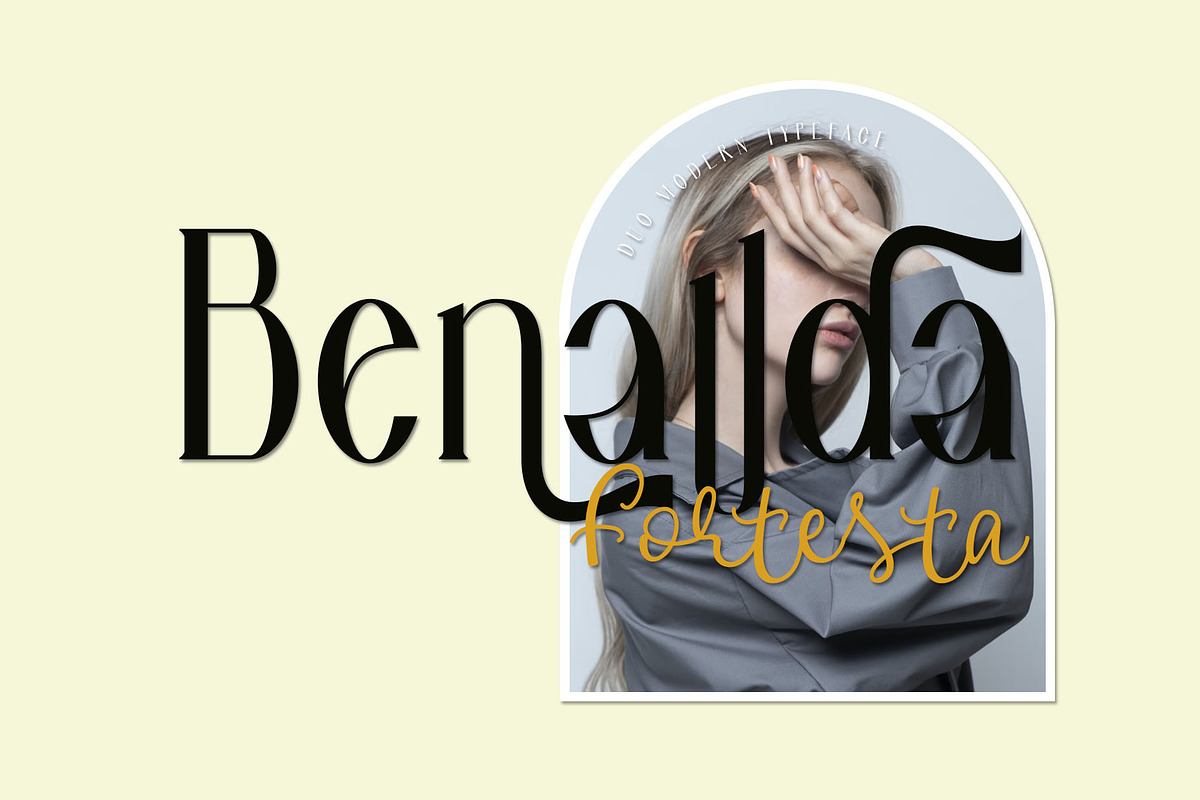
Benallda Fortesta Duo Font Free Download is a beautifully paired typeface set that combines an elegant script with a modern serif for ultimate versatility and style. Ideal for branding, wedding invitations, product packaging, and editorial layouts, this font duo adds both personality and professionalism to any design.
The script font brings a touch of handwritten charm, while the serif adds structure and sophistication—perfect for combining headlines and supporting text with balance and flair. Whether you're designing logos, fashion lookbooks, or lifestyle content, Benallda Fortesta offers a cohesive and elevated typographic solution.
Designers love Benallda Fortesta for its harmony, elegance, and flexibility. Want to create stunning visuals with perfectly paired fonts? Download Benallda Fortesta Duo Font Free Download and let your typography shine with creativity and class.